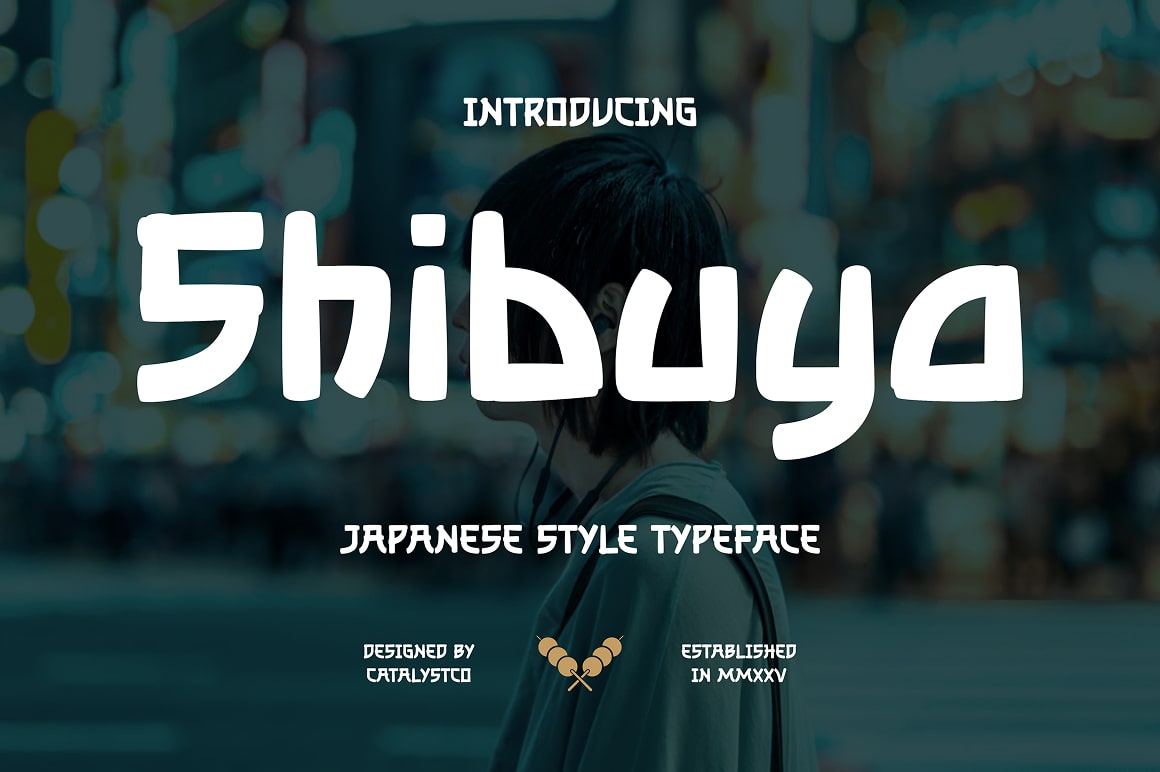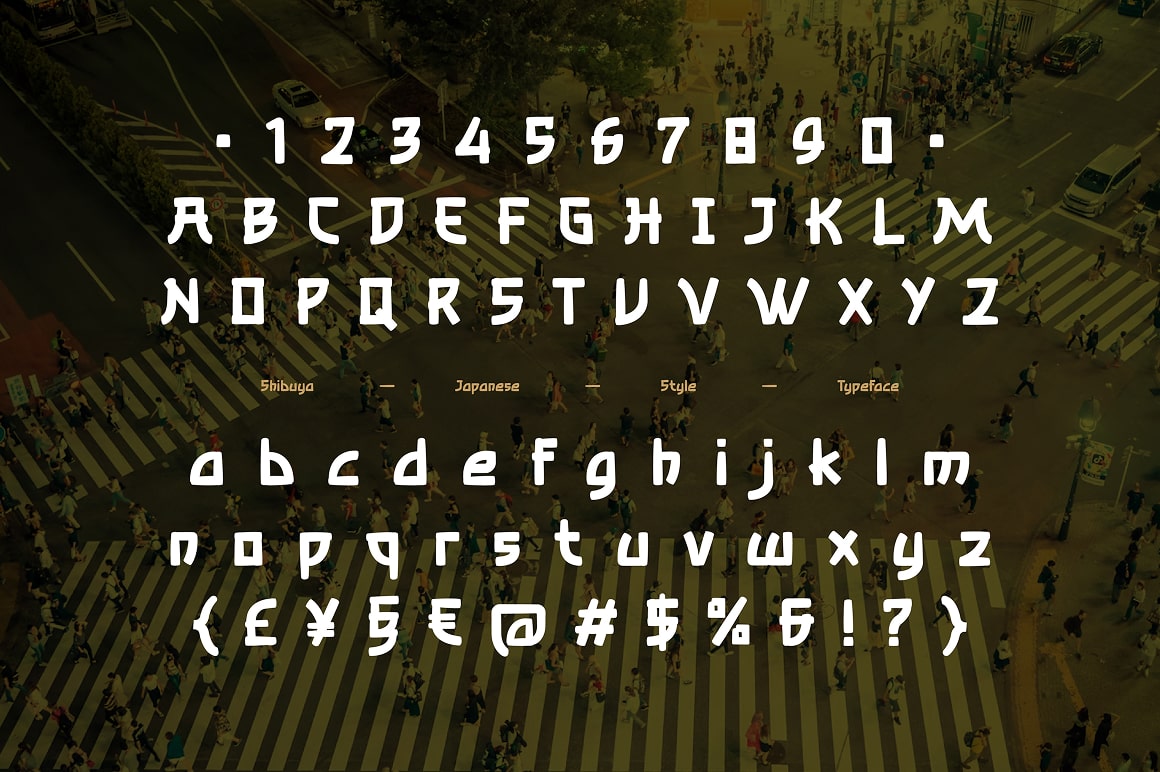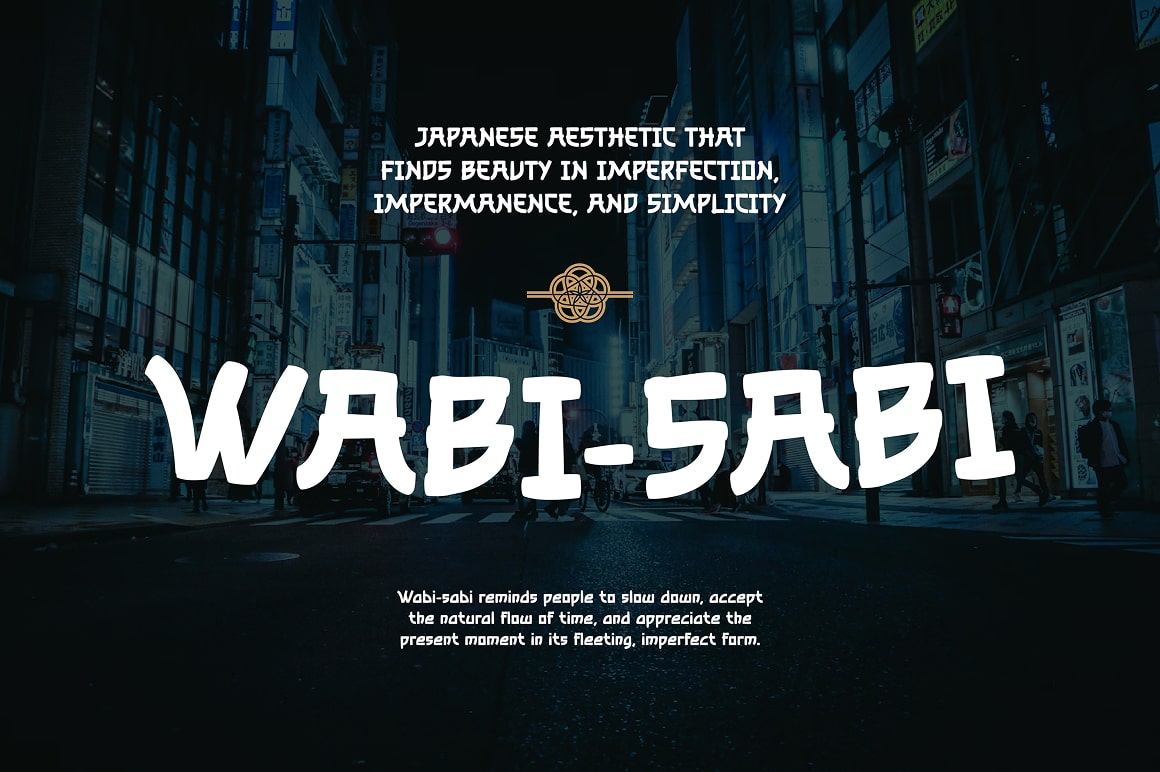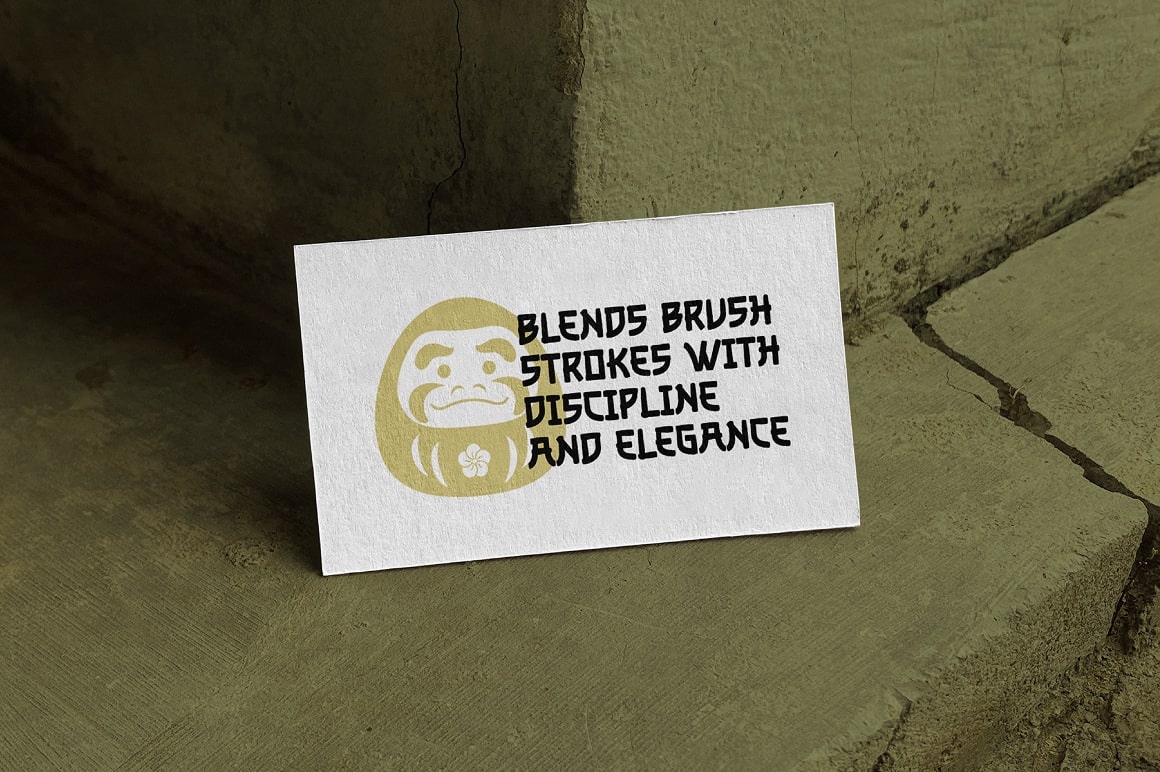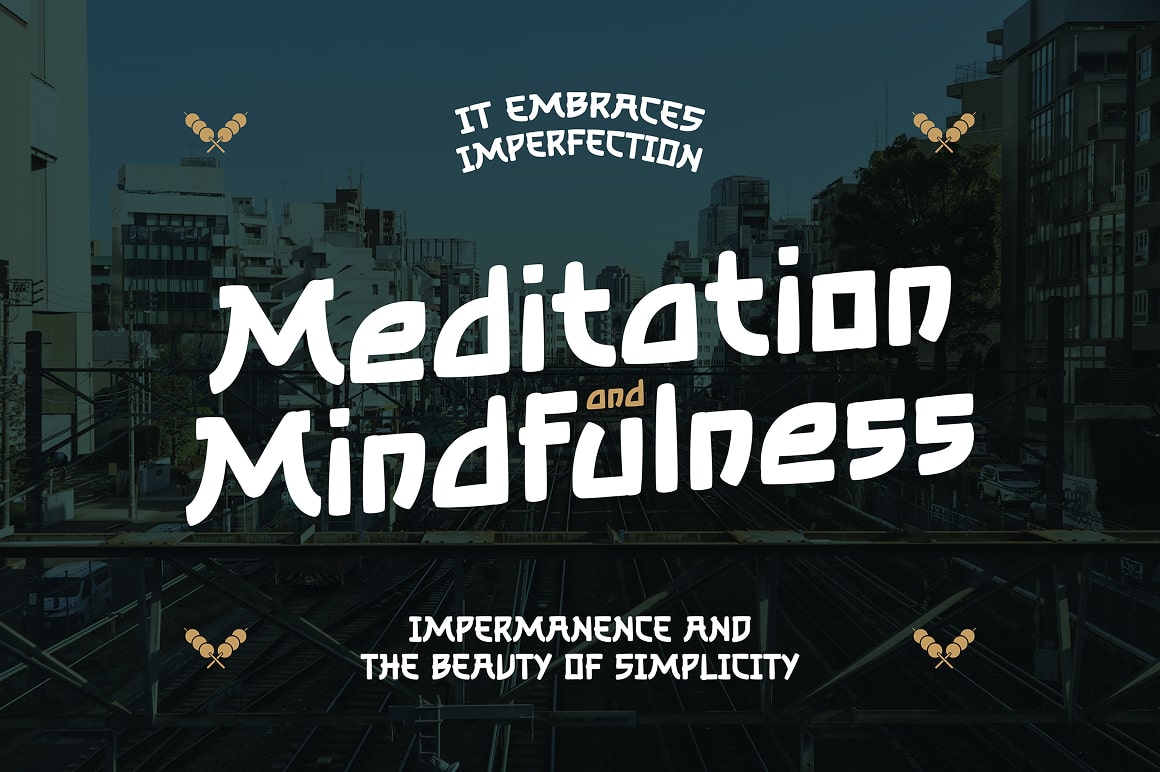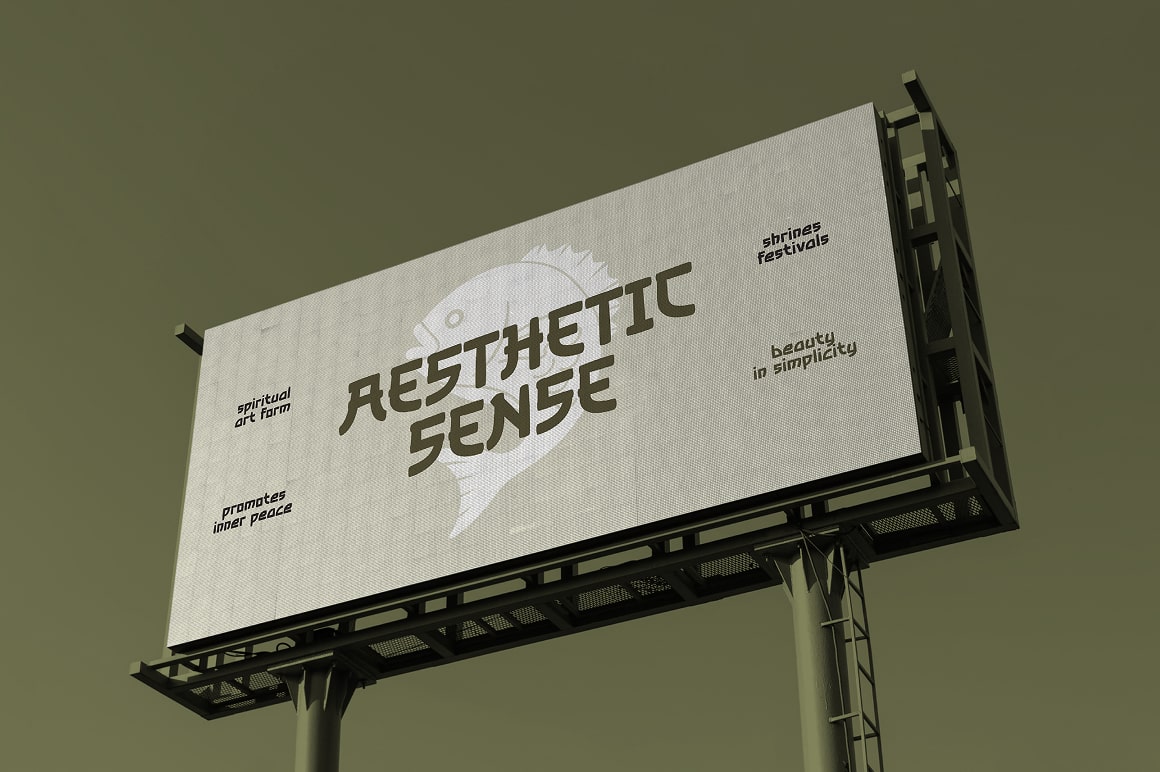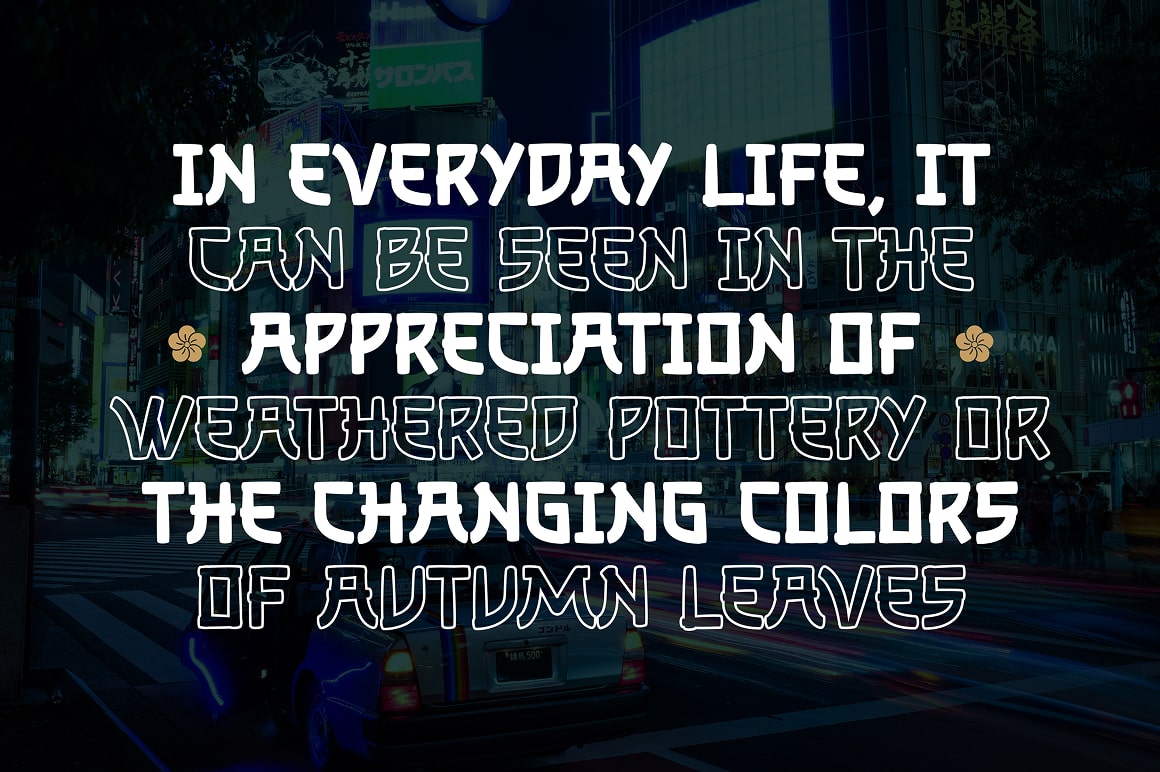
Shibuya Japanese Style Font
Description
SHIBUYA is a bold and dynamic Japanese-style display font inspired by the vibrant, fast-paced energy of Tokyo’s most iconic district. Its style reflects urban sophistication with a clean, confident vibe that’s both contemporary and culturally rich. The typeface strikes a balance between assertiveness and minimalism, channeling the modern energy of Japanese cityscapes. With a vibe that fits perfectly into tech startups, fashion campaigns, digital content creators, and streetwear branding, SHIBUYA speaks to designers looking for something clean yet bold. Its market orientation is ideal for Instagram quotes, poster layouts, edgy apparel labels, product packaging, editorial spreads, or YouTube thumbnails that want to feel urban and refined.
Main Features
• Uppercase & Lowercase
• Ligatures & Alternate
• Numeral & Punctuations
• Multilingual Support